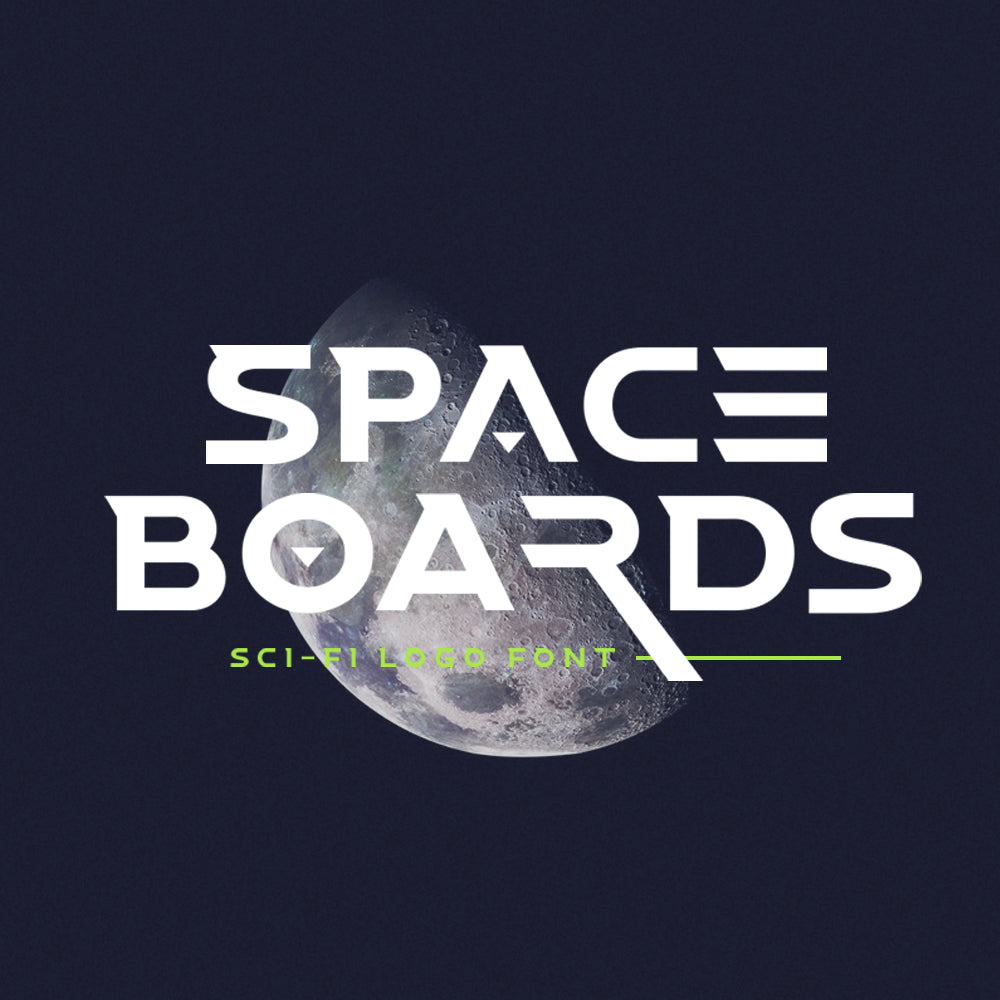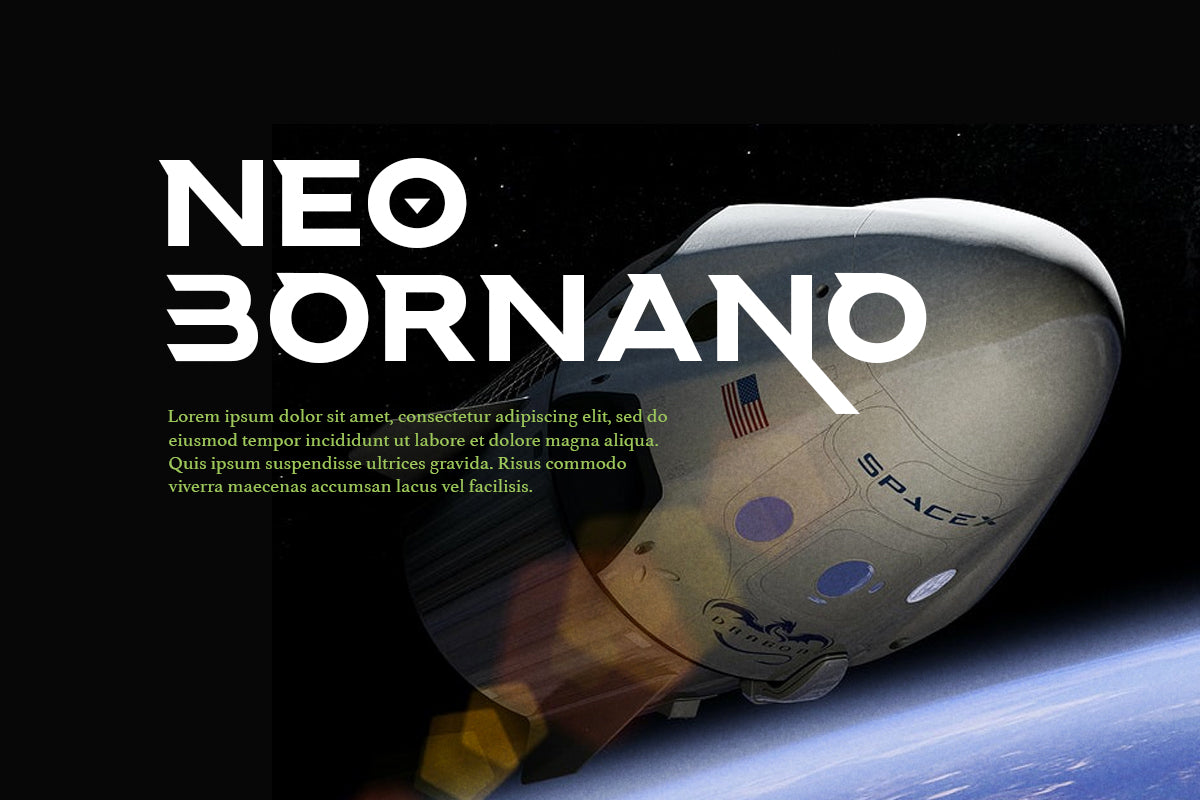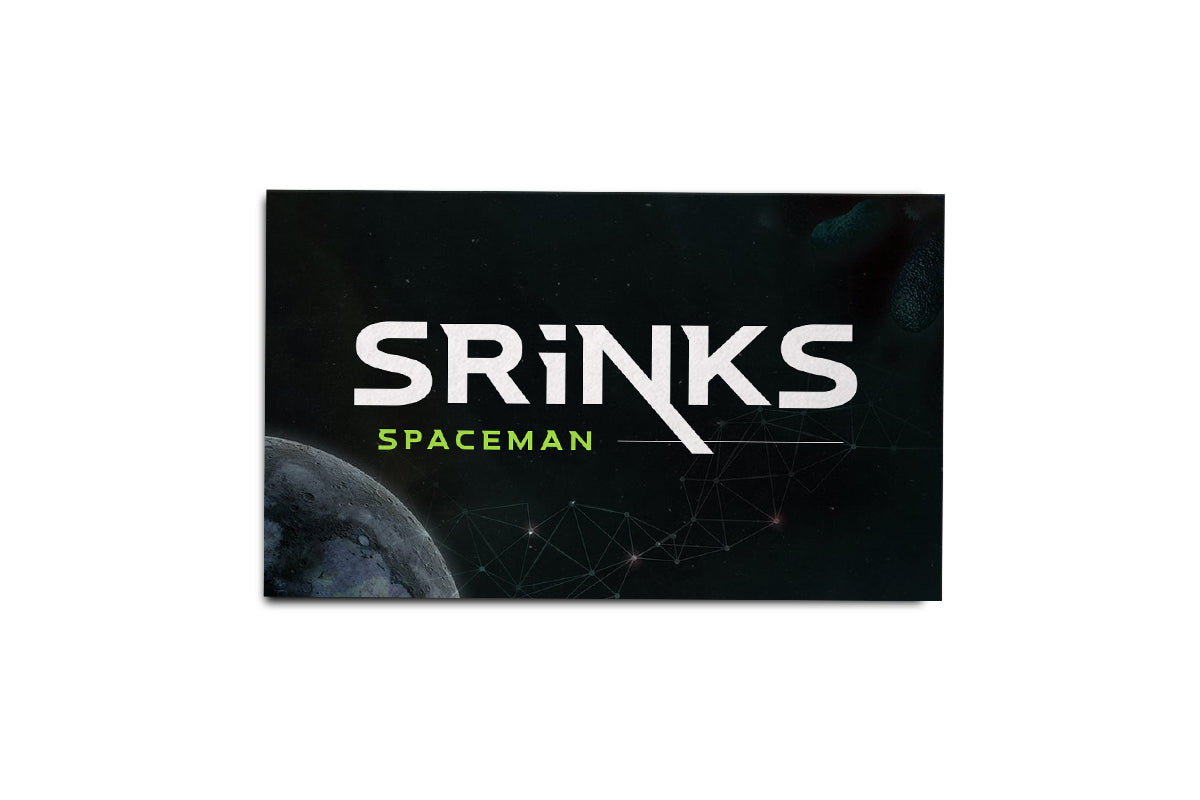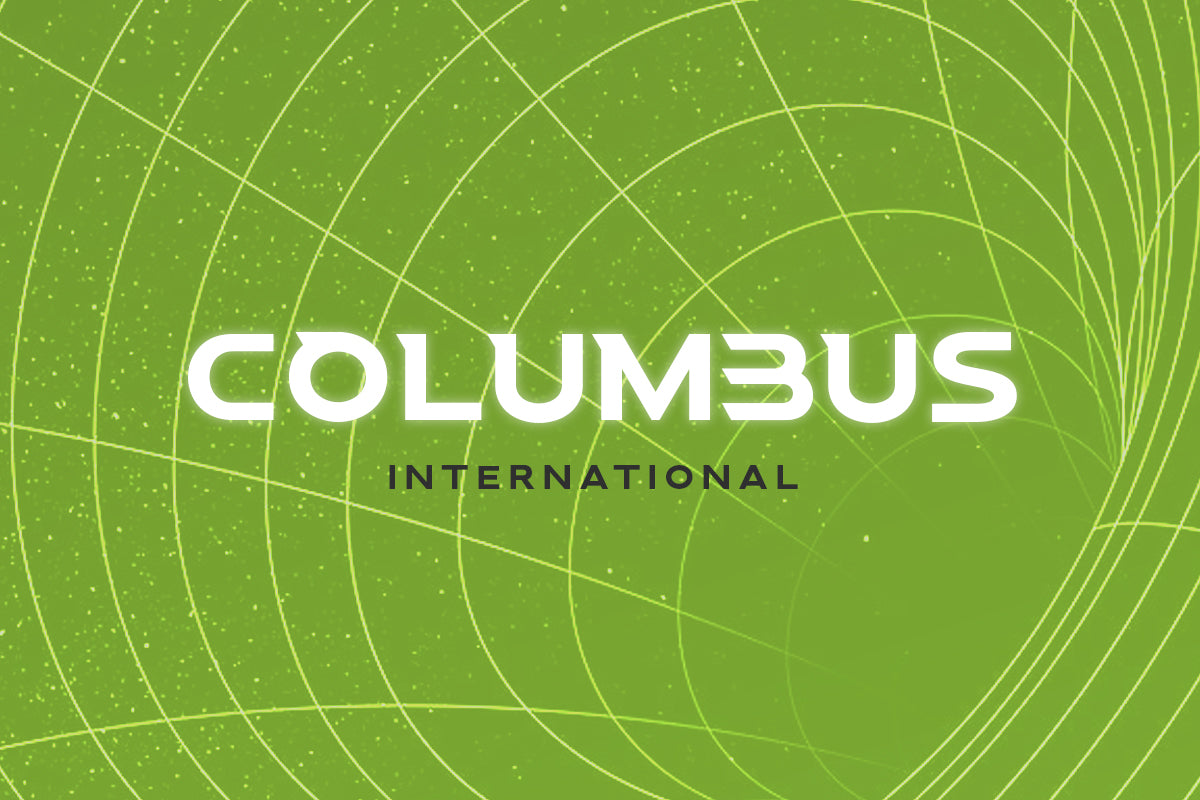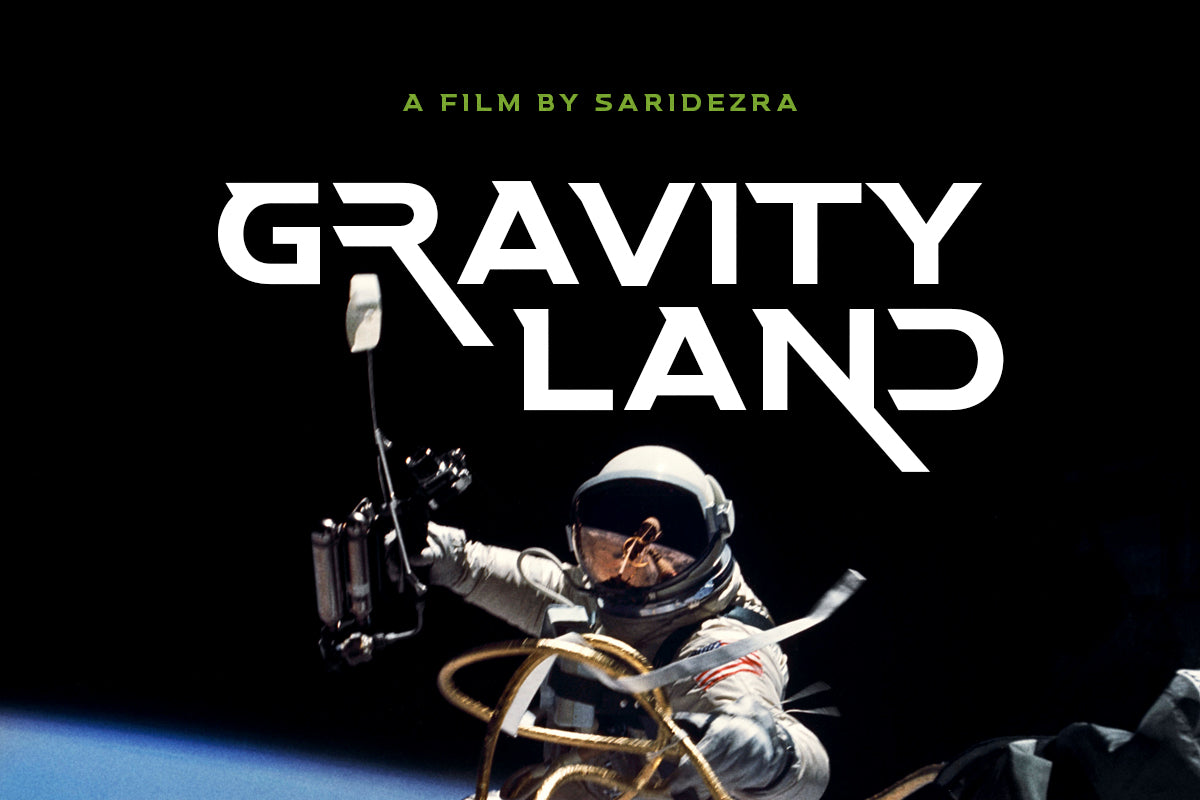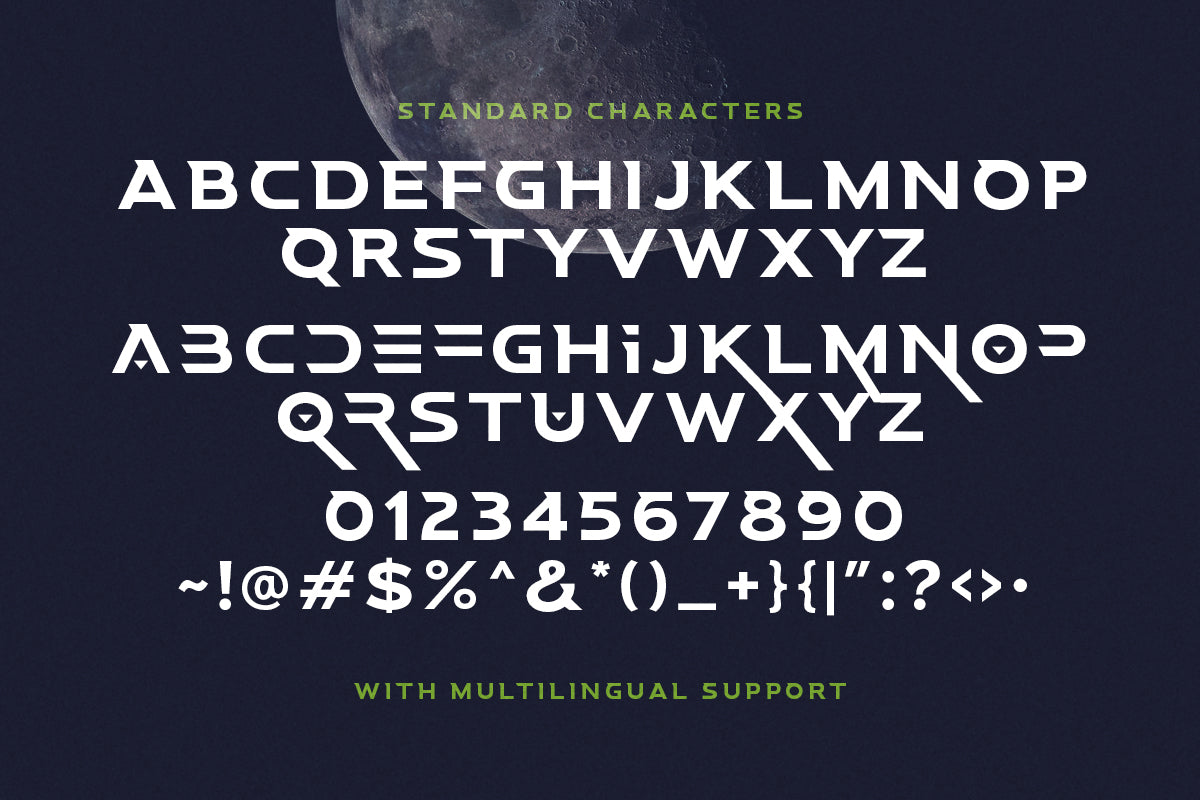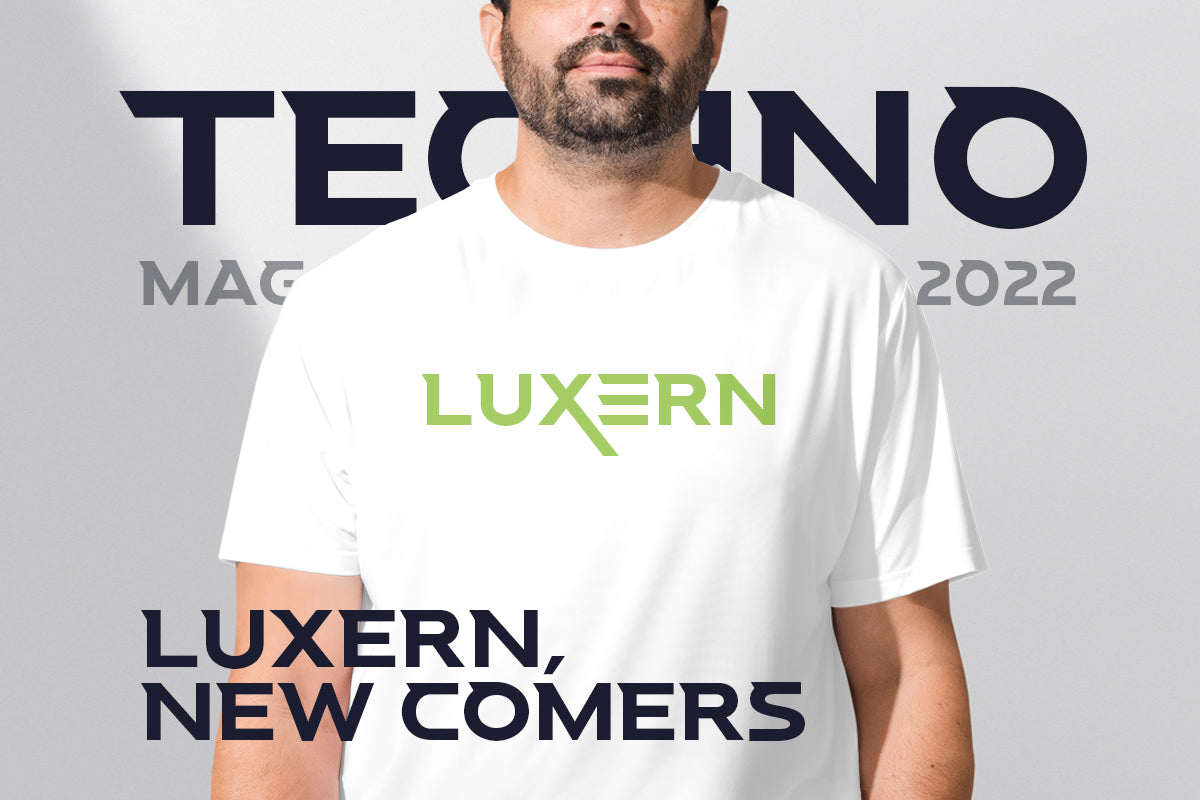
Space Boards - Sci-Fi Logo Font
Space Boards is a sans-serif font featuring distinctive uppercase and lowercase letters, designed to convey a futuristic and modern aesthetic. It supports multiple languages and is suitable for creating unique logotypes and science-fiction themed designs.